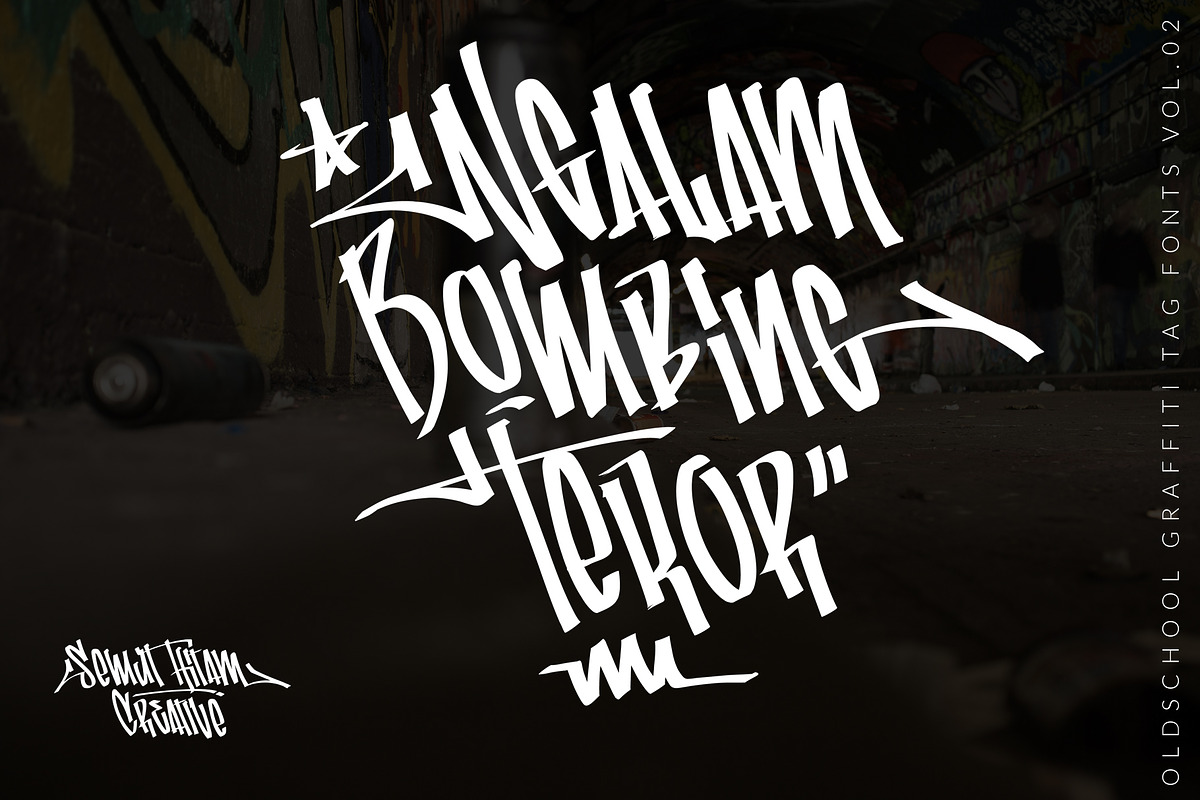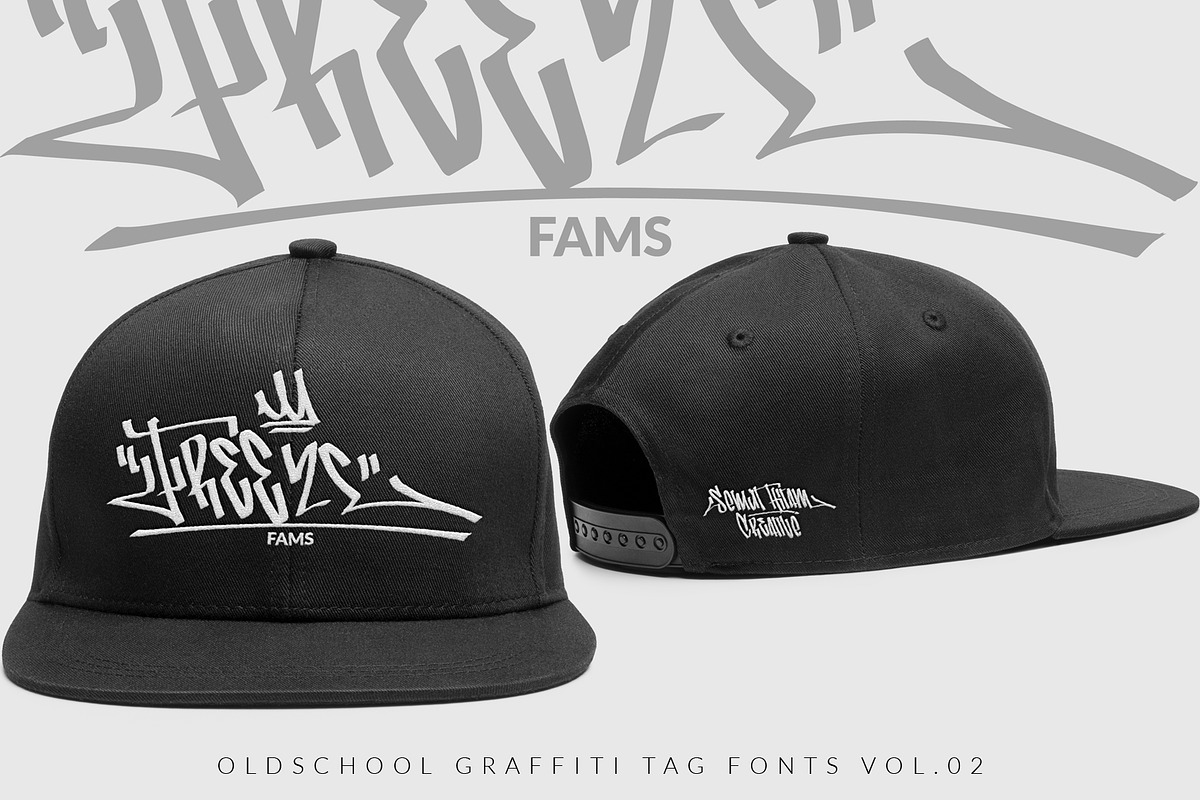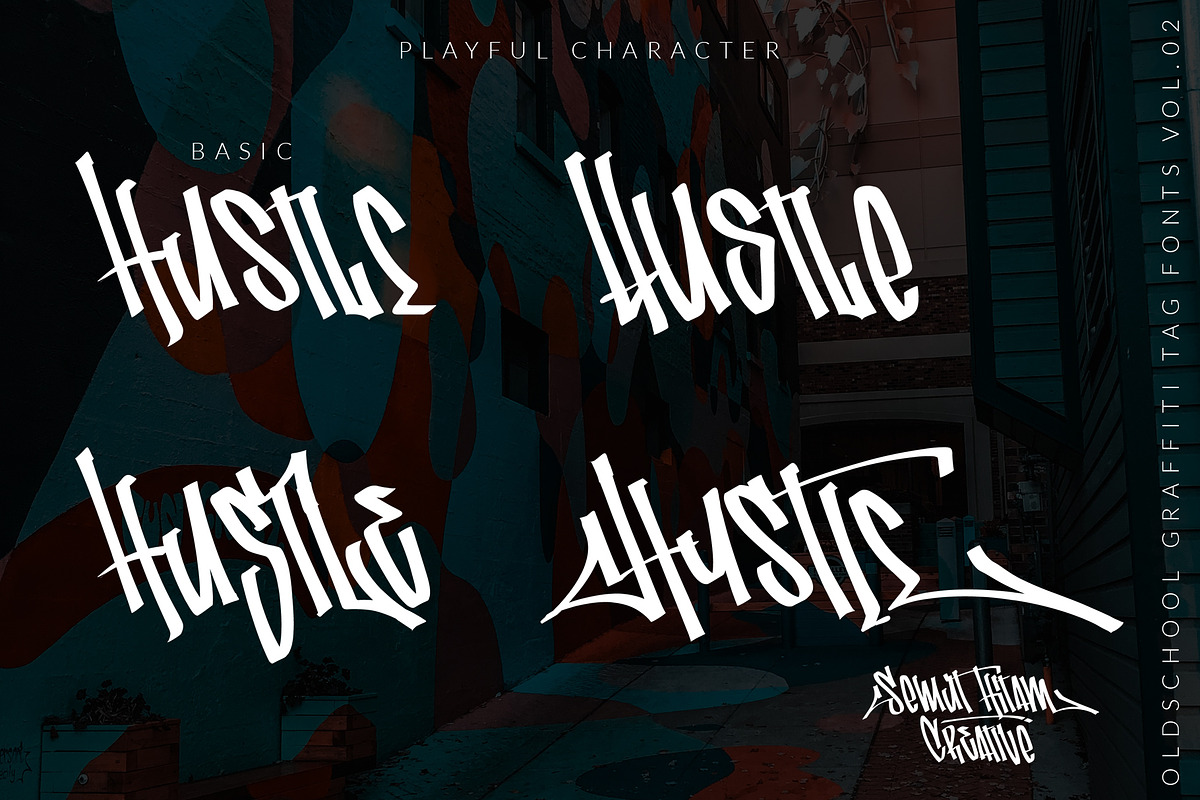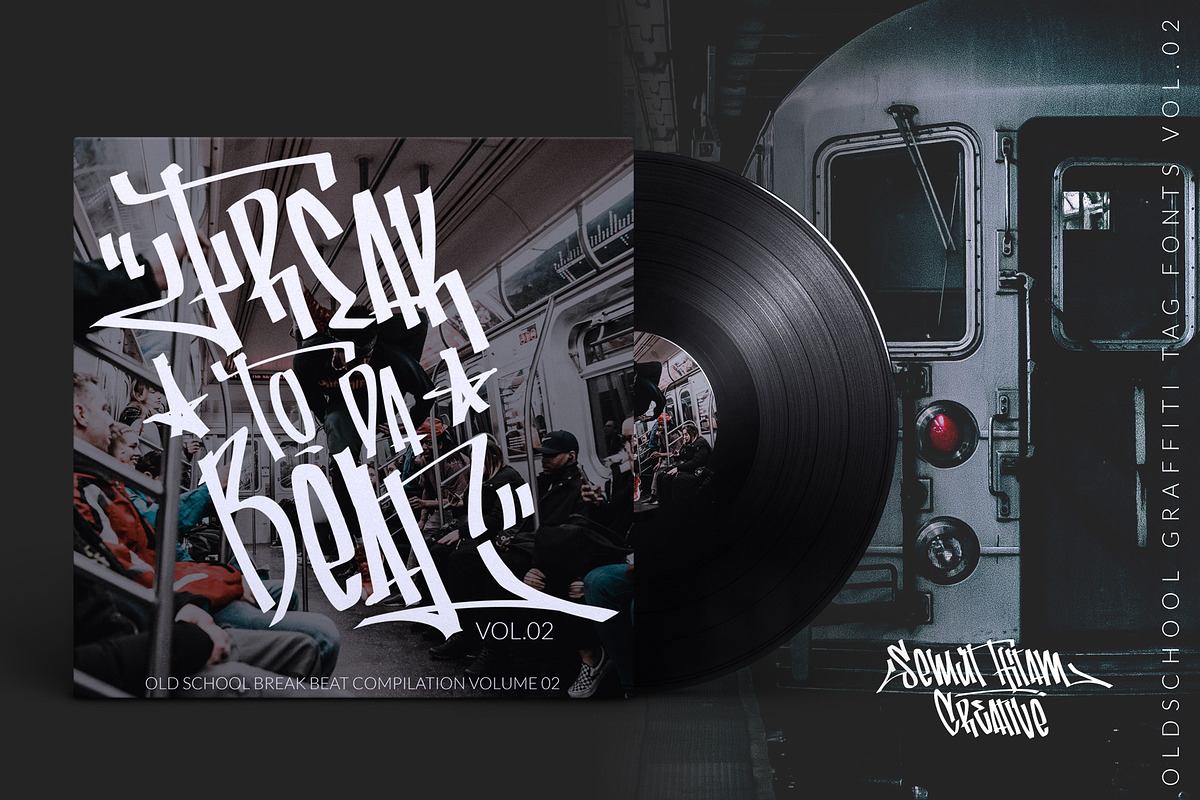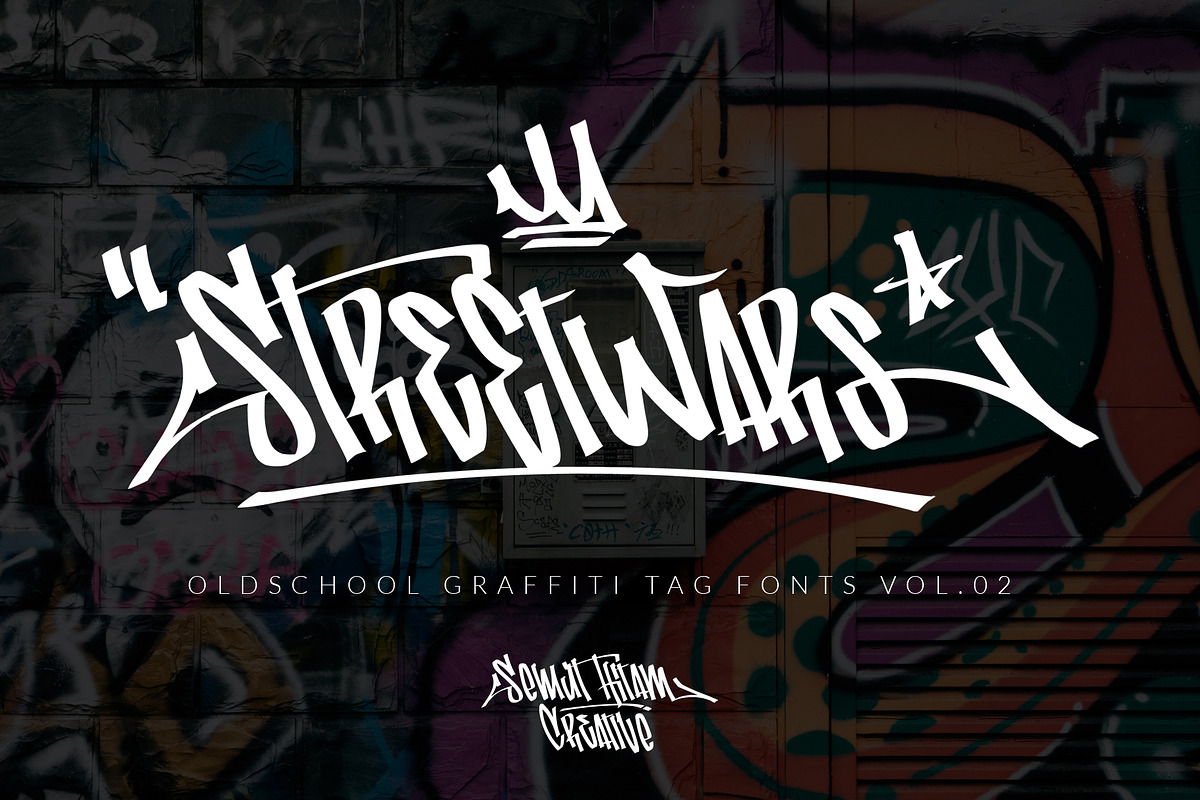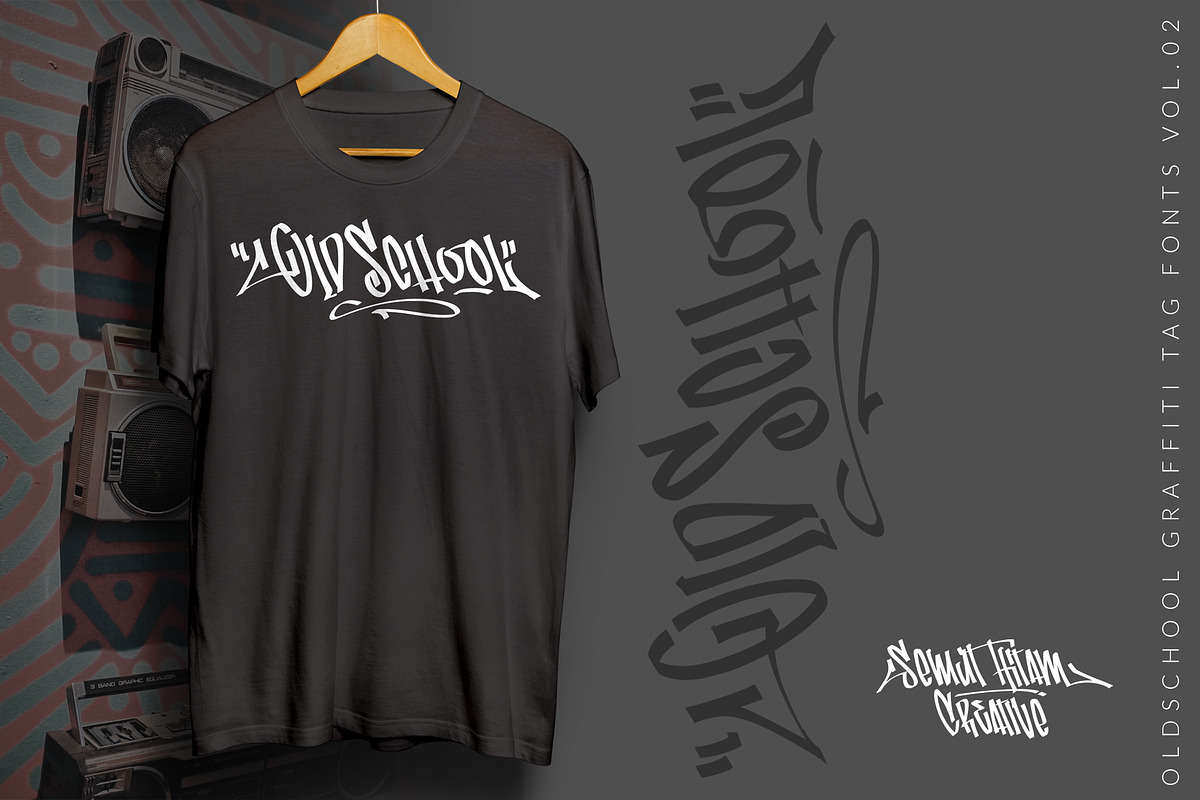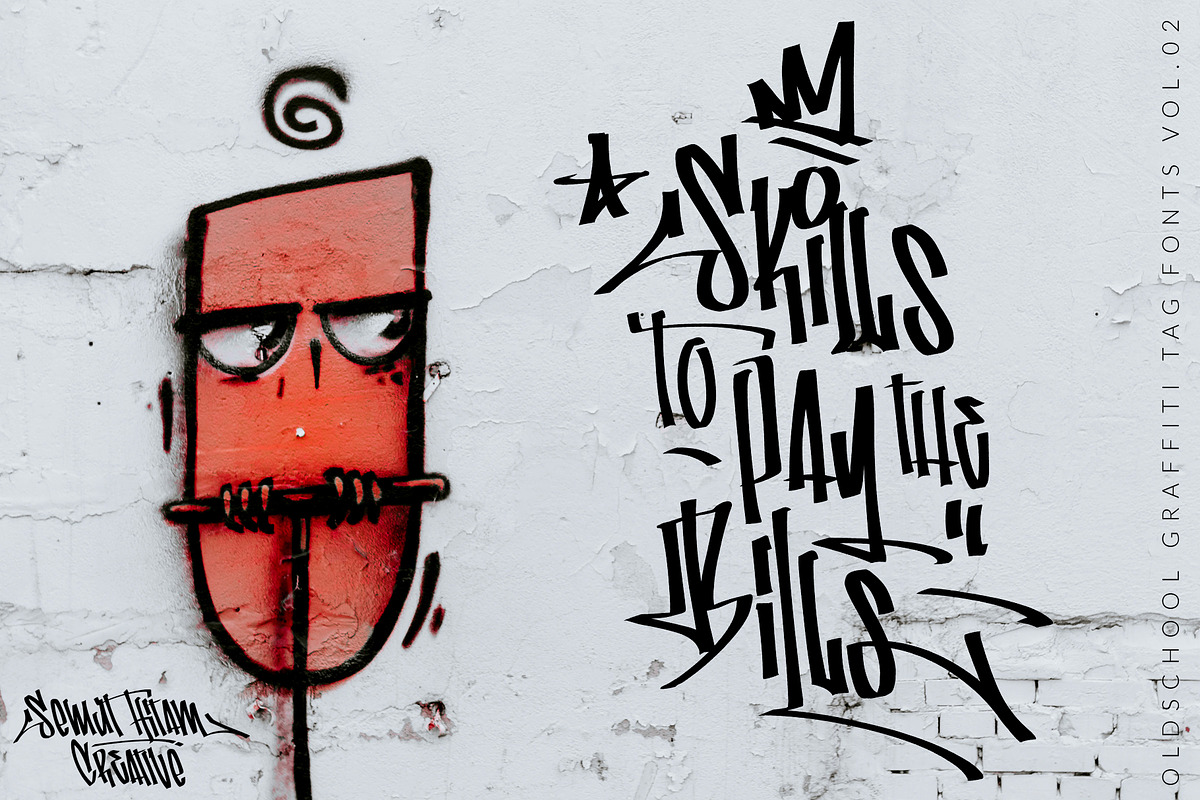
Street Wars - Graffiti Fonts
Street Wars is an Oldschool Graffiti Tag Fonts, Back to Basic!!! For those of you who want a more funky design look. In the graffiti world, usually you'll use the initials as a sign of your masterpiece, or you use it for a graffiti battle. Street Wars present to you, Inspired from old style graffiti tagging. Street Wars Includes full set of funky uppercase, lowercase letters, numbers, punctuation, multilingual language, stylistic styles and various ligatures. To make you easily mix and match your own graffiti style tag.